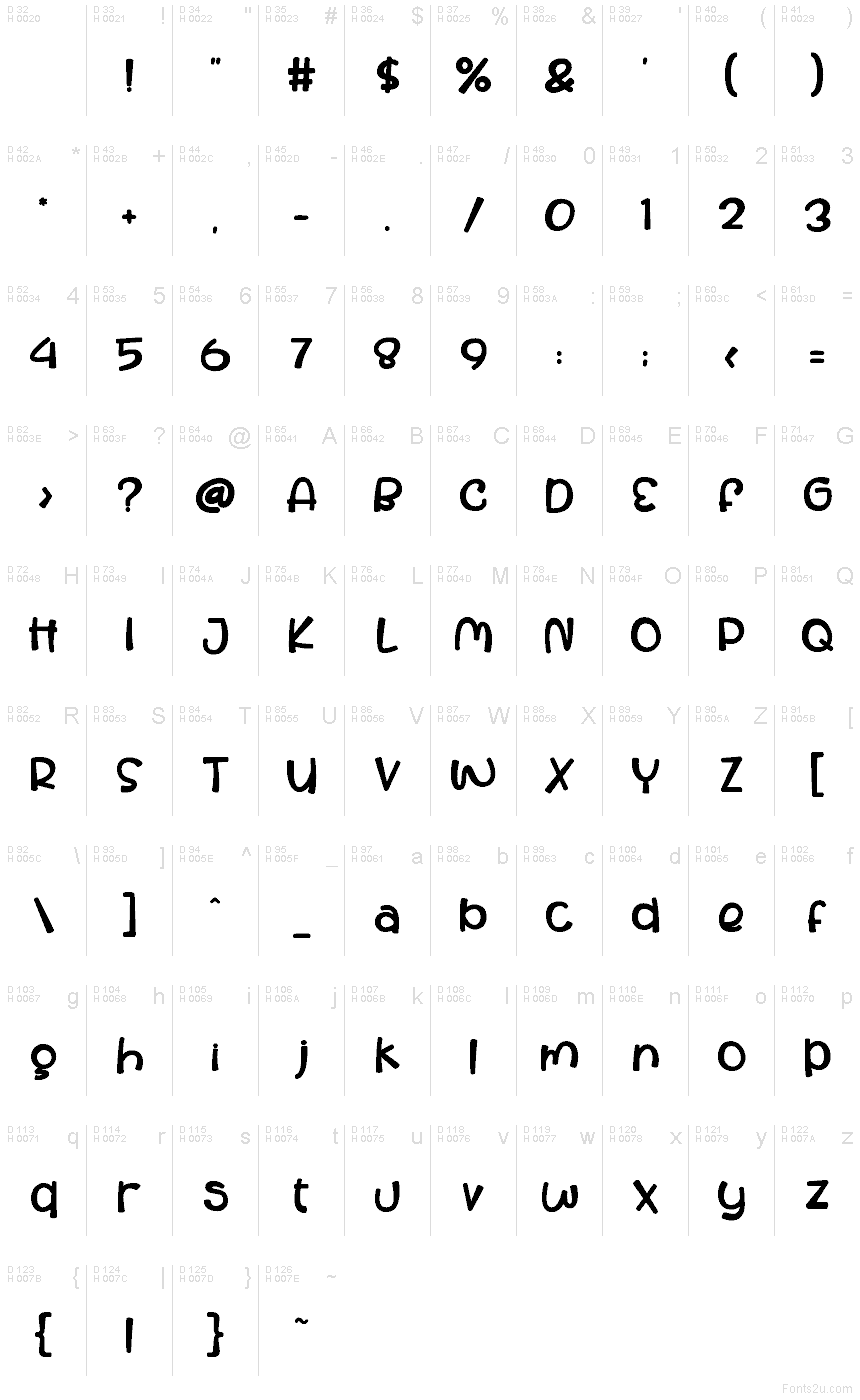
Pastel Palooza
Pastel Palooza font is a display comic font designed by PutraCetol Studio. It carries retro influences mixed with geometric elements, a casual aesthetic, and an approachable feel that is highly relevant in entertainment themes. The letters that the free font features come with clean shapes and solid lines.
Bring a fun aura to books, magazines, postcards, labels, packaging boxes or bottles using Pastel Palooza. Cover design projects like movies posters, CD covers of your favorite bands or artists can also gain their fair share of creativity when the font is used on them.